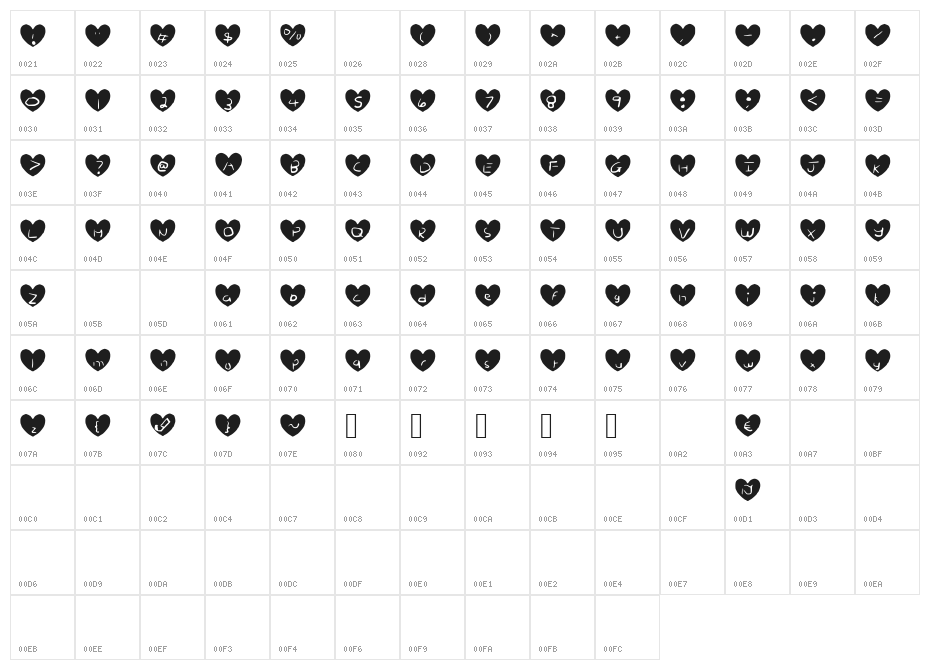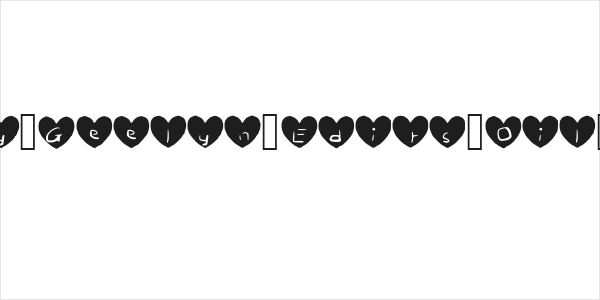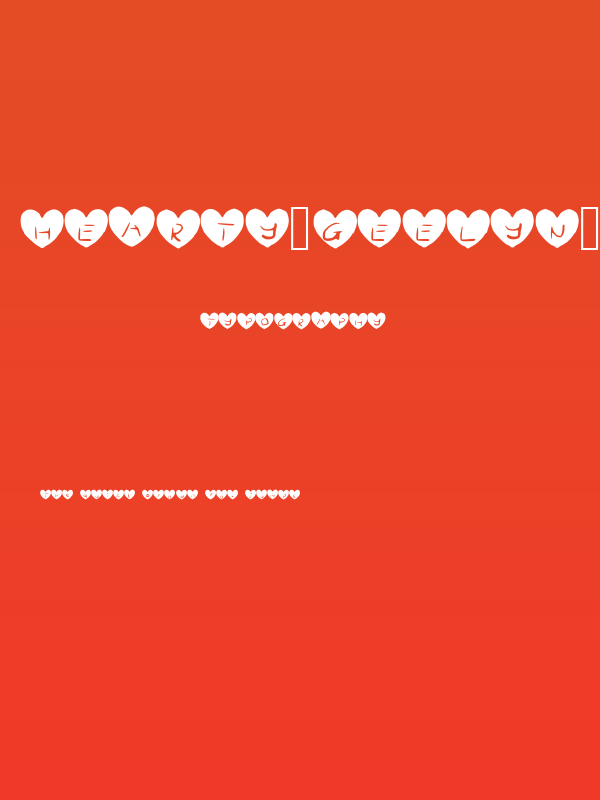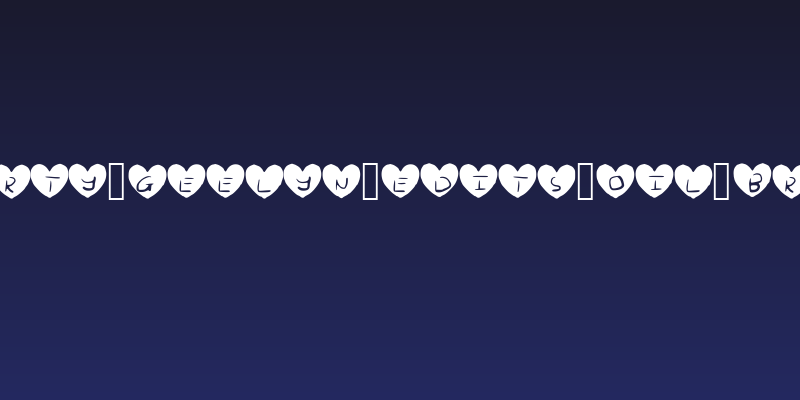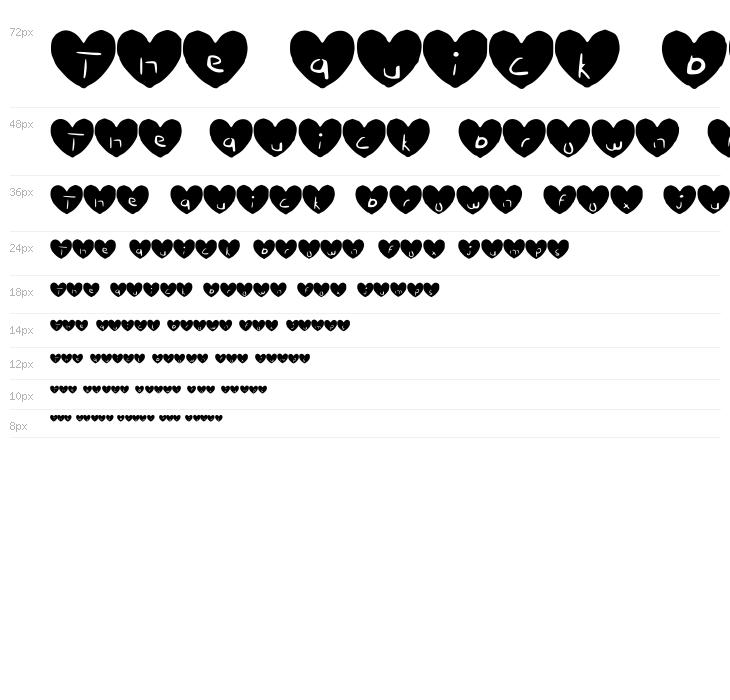
Hearty_Geelyn_Edits_Oil_Brush Font
Hearty_Geelyn_Edits_Oil_Brush Description
This playful and decorative font features characters enclosed within heart shapes, creating a whimsical and charming aesthetic. The letters and numbers are handwritten with a casual, brush-like style, adding a personal and artistic touch. The heart enclosures make each character stand out, providing a unique visual appeal. This font is perfect for projects that aim to convey warmth, affection, or a playful tone. The characters are evenly spaced within the hearts, ensuring readability while maintaining the decorative aspect. The font's design is consistent across uppercase, lowercase, numbers, and special characters, making it versatile for various creative applications.
| Proposed Projects | Ideal for Valentine's Day cards, wedding invitations, playful branding, and children's book covers. |